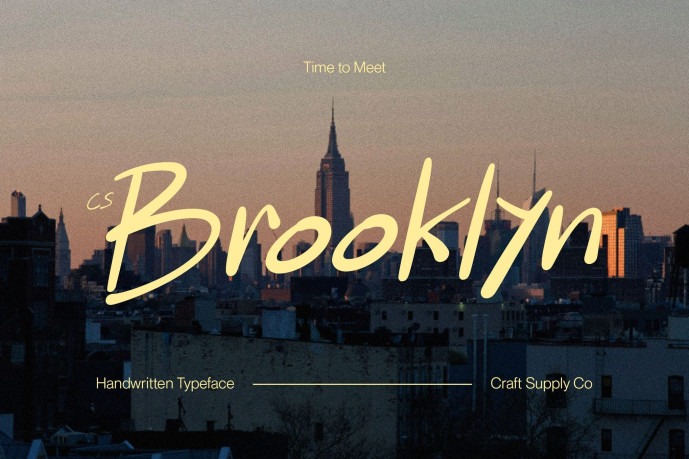
Brooklyn – Funky Handwritten Font
CS Brooklyn Handwritten Font with a Carefree and Stylish Vibe This font is a carefree handwritten font that fuses a funky spirit with modern sans serif style. Its relaxed strokes and effortless flow exude confidence and creativity, making it perfect for projects that aim to feel youthful, fresh, and full of personality.
Funky Flow for Playful Expression Every line in this font moves with ease, creating a lively and spontaneous rhythm. The handwritten quality gives it a human touch, while its balanced spacing keeps it modern and clean. This makes it ideal for designers who want to combine fun and flair with contemporary aesthetics.